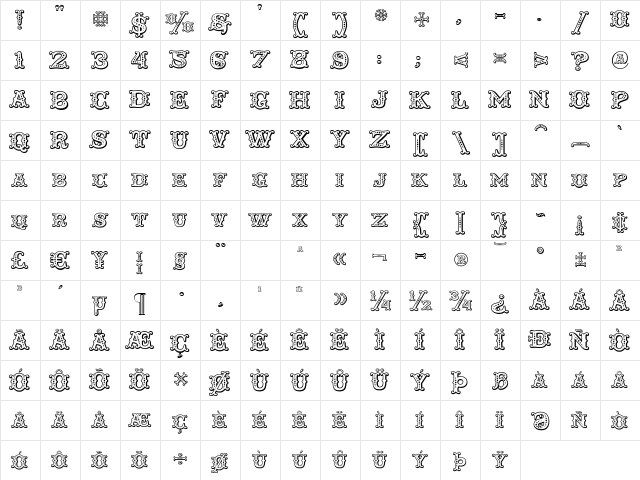
Taqueria Open Decor Regular Free Font
Taqueria Open Decor Regular
Design Context for Taqueria Open Decor
Taqueria Open Decor is a composed and adaptable typeface that performs quietly and consistently across a wide range of design contexts.
Pro Tip: Use Taqueria Open Decor in both headline and body roles to test its range before committing to a single application.